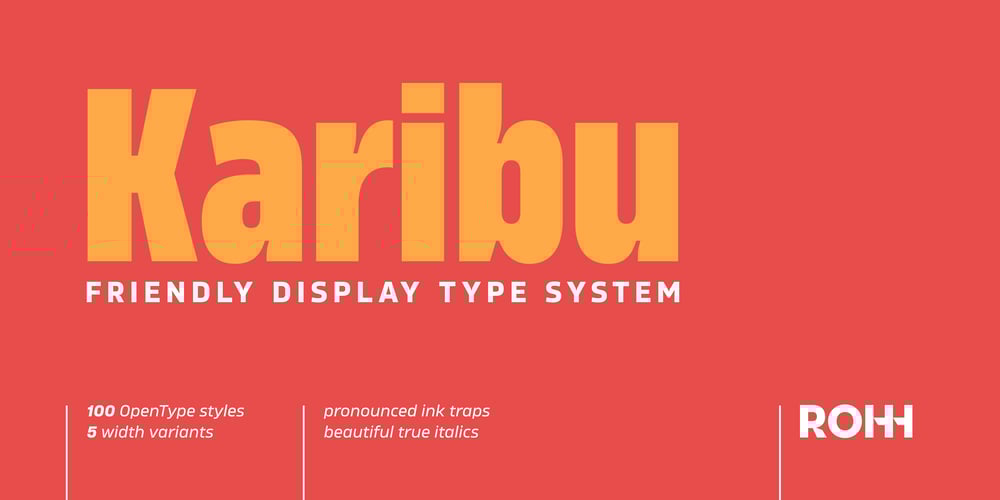
Karibu Font Family was designed by Roch Modrzejewski and published by ROHH. Karibu contains 100 styles and family package options. Karibu™ is a 100-font original, ultra versatile geometric grotesk family with a lot of character. It is designed for modern projects, to serve as display as well as paragraph text typeface. It is perfect for lots of design situations – from magazine editorial use, logo design & branding, to web design, user interfaces and mobile applications. Main features: – 5 widths (Narrow, Condensed, Normal, Expanded, Wide), each consisting 20 fonts – 10 weights for each width (from Hairline to Black) – handdrawn, carefully crafted italics – alternate stylistic set for more technical and minimalistic projects – pronounced ink traps and large x-height improving legibility in small sizes and adding strong personality to display sizes – flatten letter shapes adding vertical rhythm and elegance to narrow widths – extended latin language support – OpenType features (case sensitive forms, standard and discretionary ligatures, stylistic sets, contextual alternates, lining, oldstyle and tabular figures, slashed zero, fractions, superscript and subscript, ordinals, currencies and symbols)